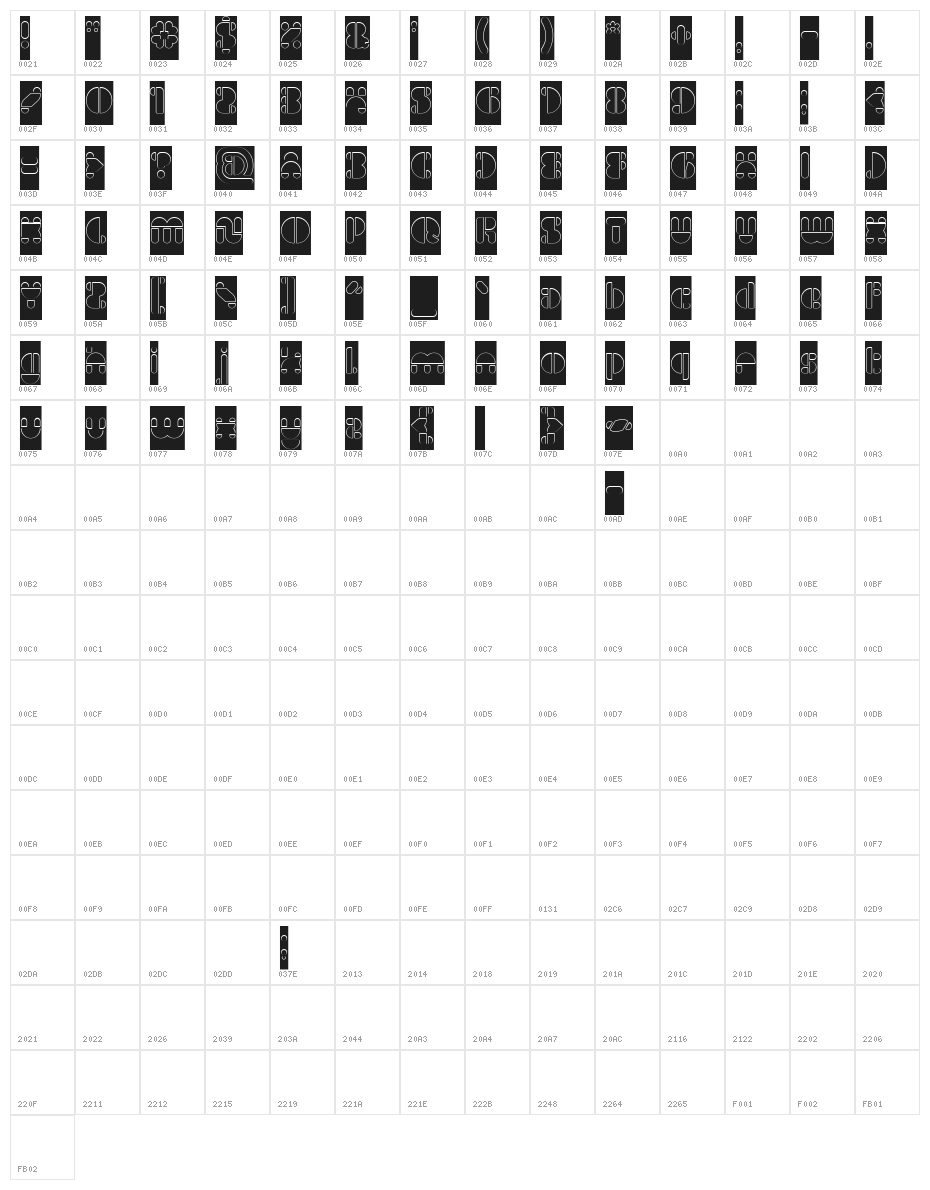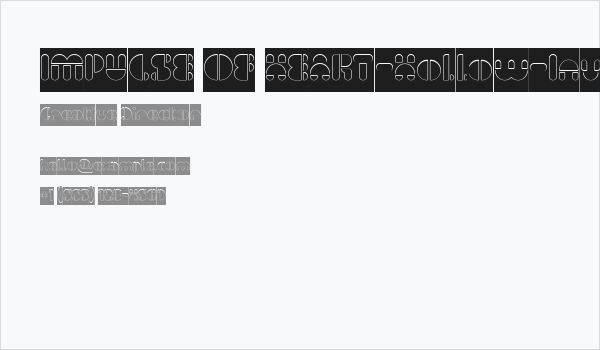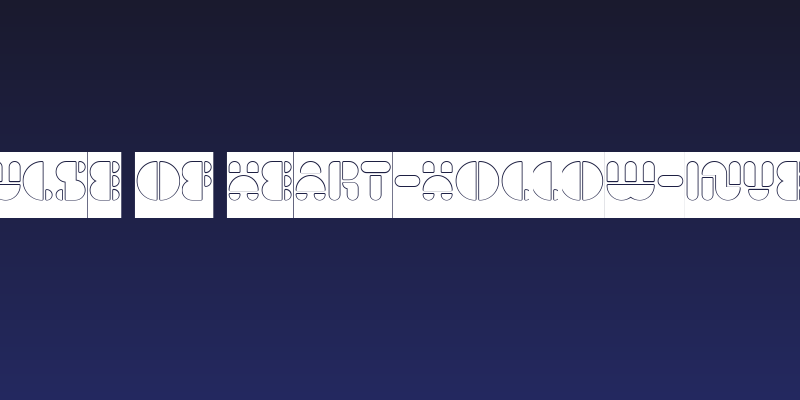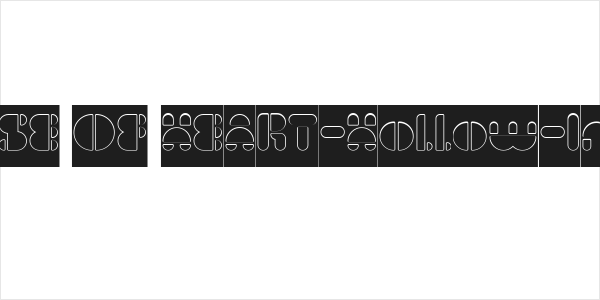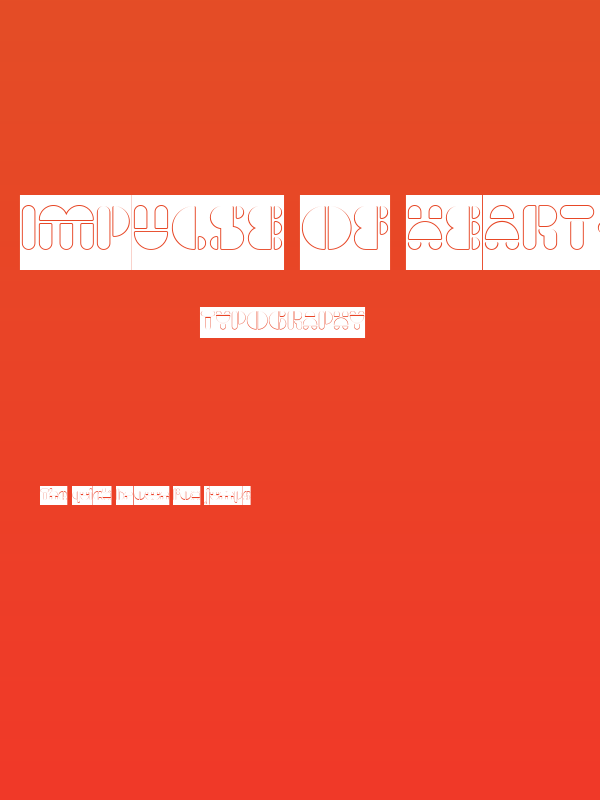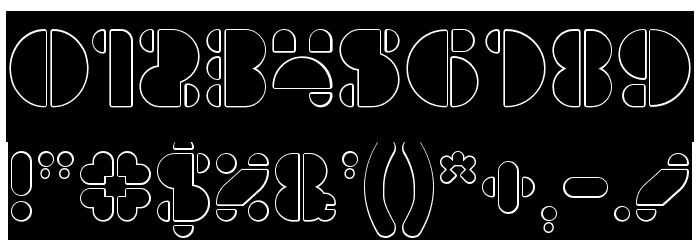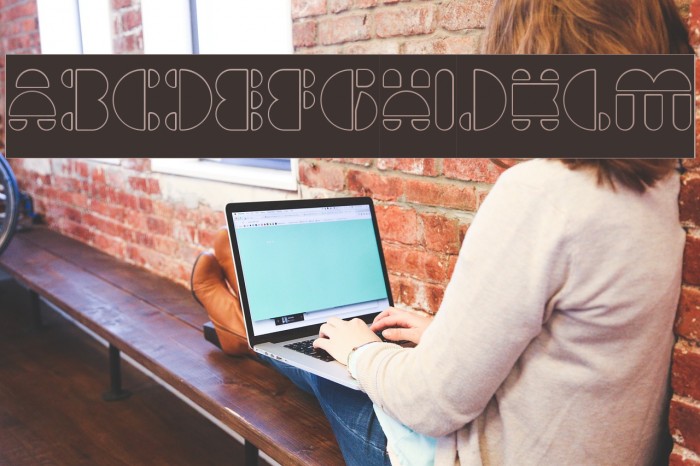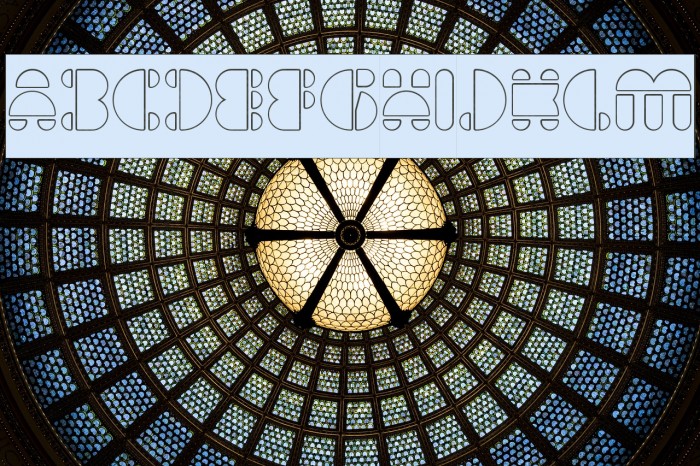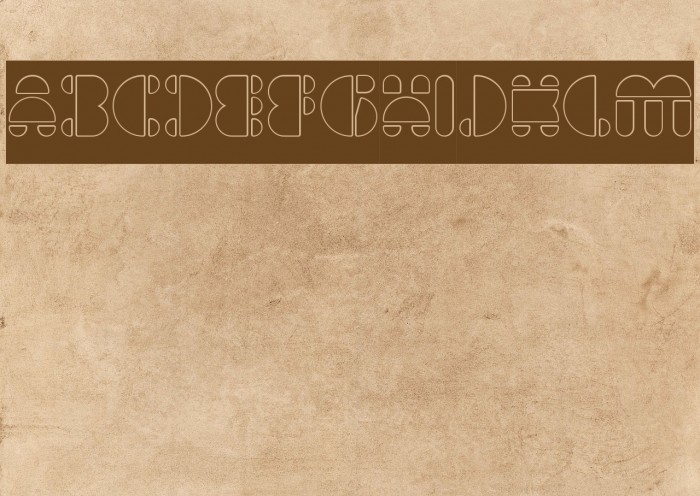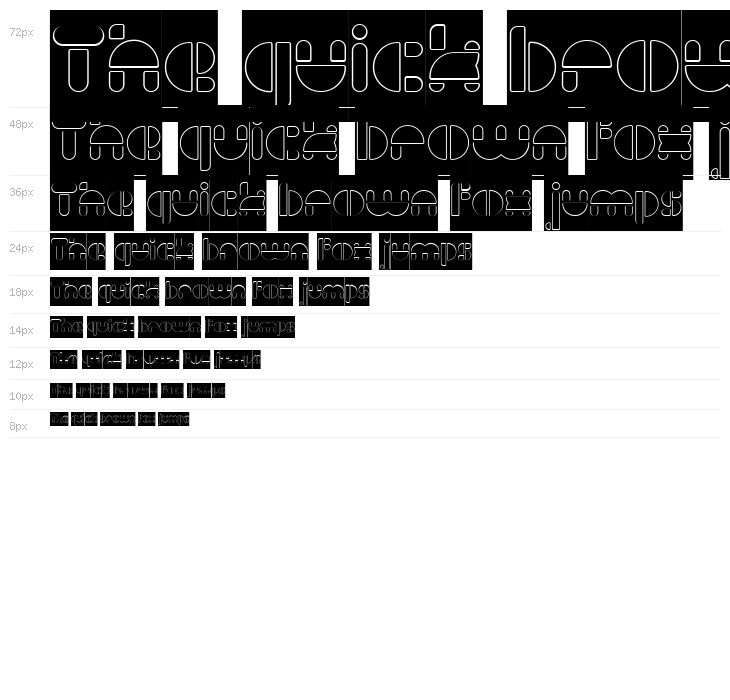
IMPULSE OF HEART-Hollow-Inverse Font
This font features a unique hollow design with an inverse style, where the interior of each character is cut out, creating a striking visual effect. The characters are composed of geometric shapes, primarily circles and lines, giving it a futuristic and modern appearance. The uppercase and lowercase letters maintain a consistent style, with rounded edges and symmetrical forms. Numbers and special characters follow the same design principles, ensuring uniformity across the font. The hollow nature of the font makes it stand out, ideal for designs that require a bold statement.
| Proposed Projects | Ideal for futuristic branding, tech-related projects, modern posters, and digital media designs. |